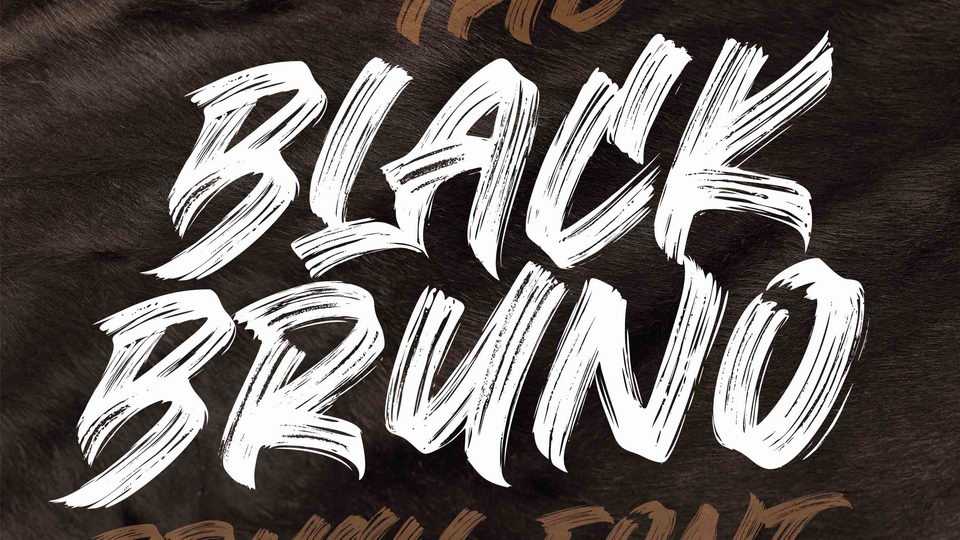
Download Black Bruno font, a supercharged, street-wise brush type bursting with energy. Black Bruno font comes with extra attention to quick strokes and sharp details.
Designer: Subectype